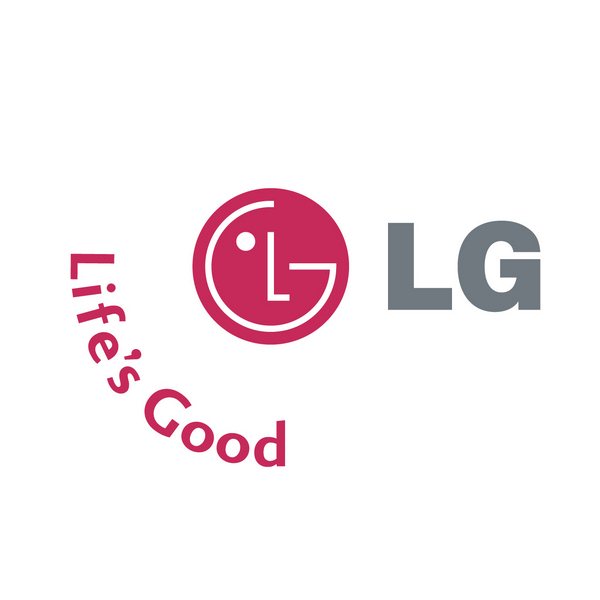
LG Font
ElectronicsLG is a South Korean multinational electronics company specializing in products such as smartphones, home appliances, and electronic devices. The LG logo features "L" and "G" shaped like a human face with LG letterforms on the right and the "Life's Good" slogan curved around the face icon.
The letterforms uses Helvetica Black font, whereas the slogan is set in Charlotte Sans Bold font.